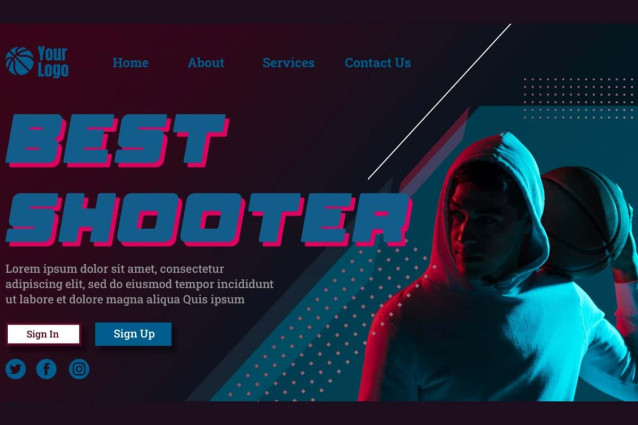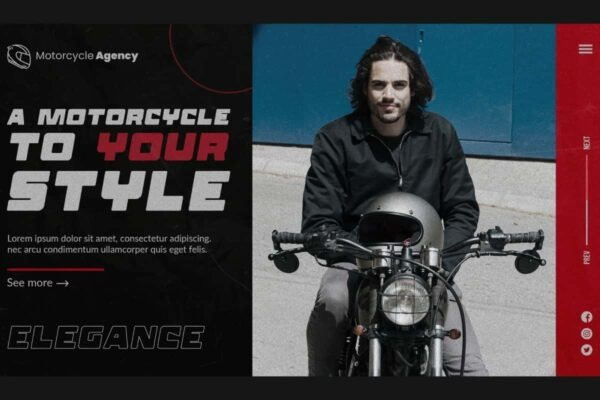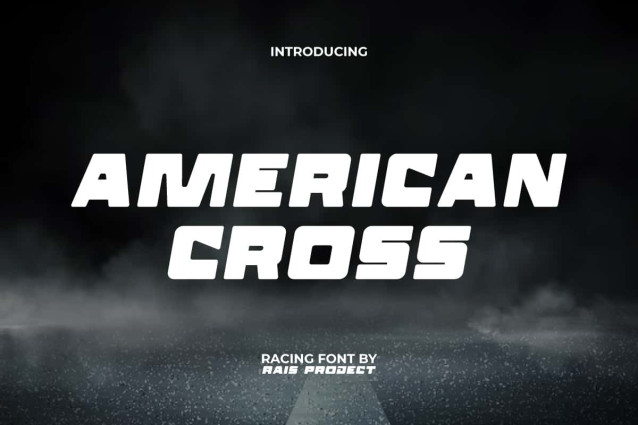
American Cross Font
American Cross Font is a a modern strong style of racing font that can convey a modern vibe by RaisProject. This font has thick characters with a unique shape so it can make your design look up to date. It will be great for poster, label, signage, stationery, custom design, product packaging, quotes, brand image, advertisement, invitation, marketing material, website page, and more!
American Cross Font includes a full set of ALL CAPS for Uppercase and Lowercase Letters, Numerals, and large range of Punctuation. This modern font will be suitable for various industries, such as sports, automotive, fashion, game, barber shop, cafe, event or festival, photography, printing, publishing, etc.